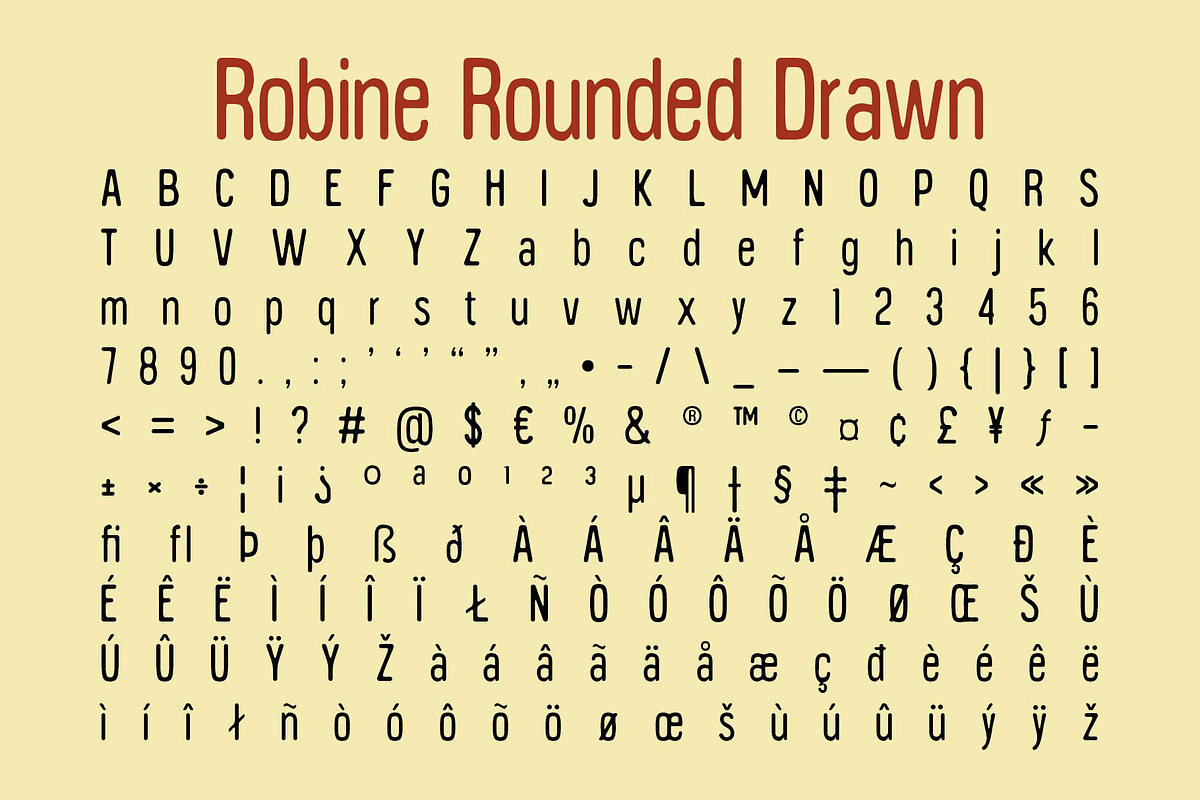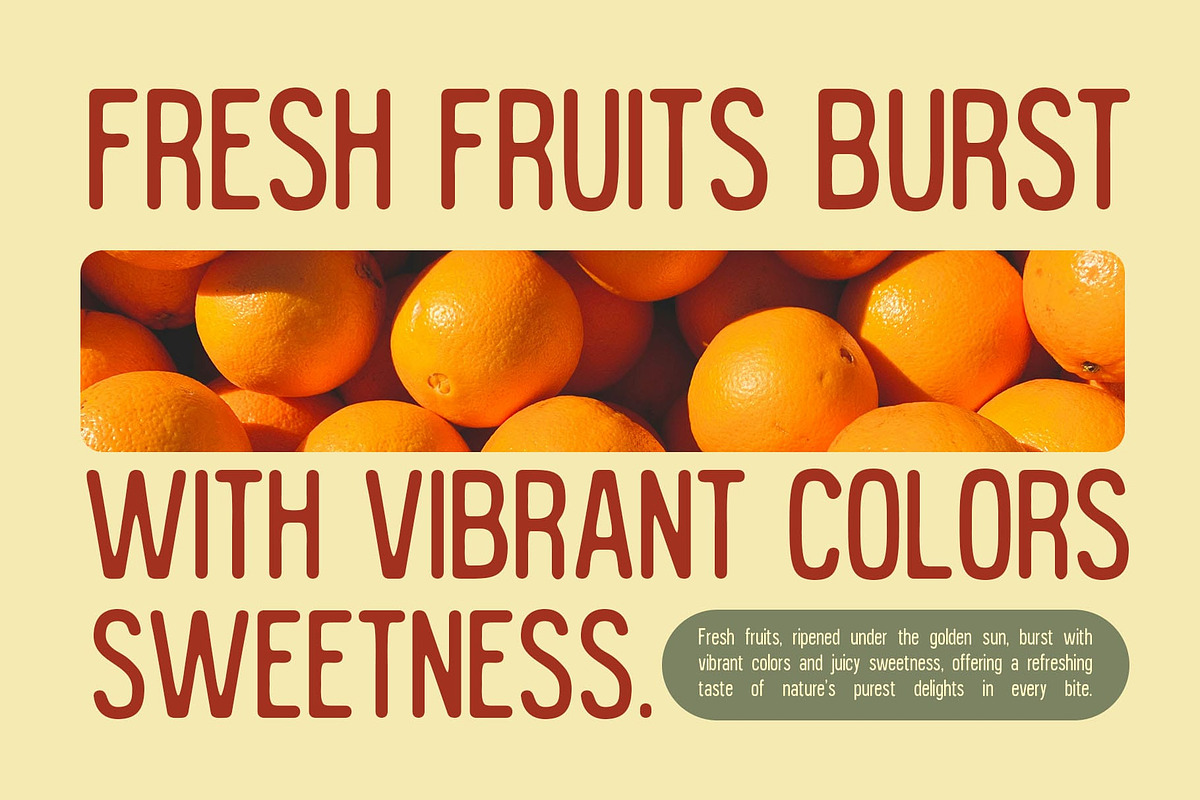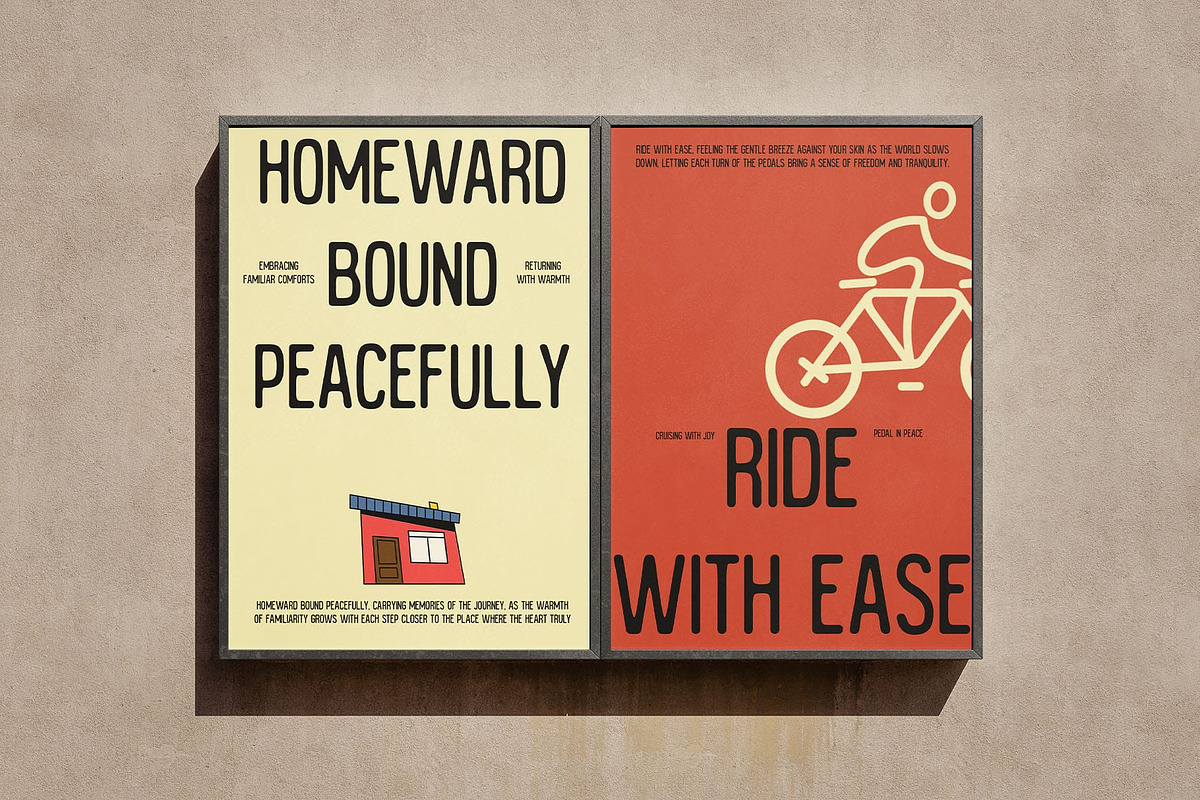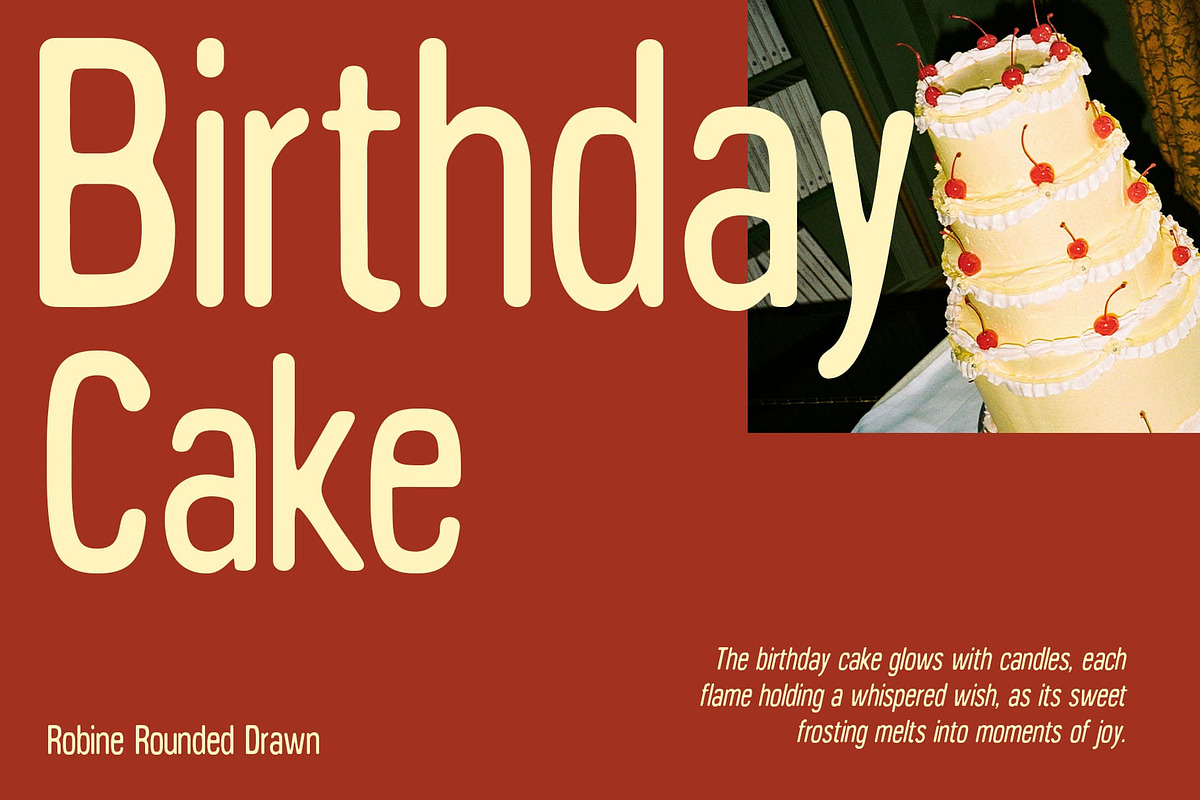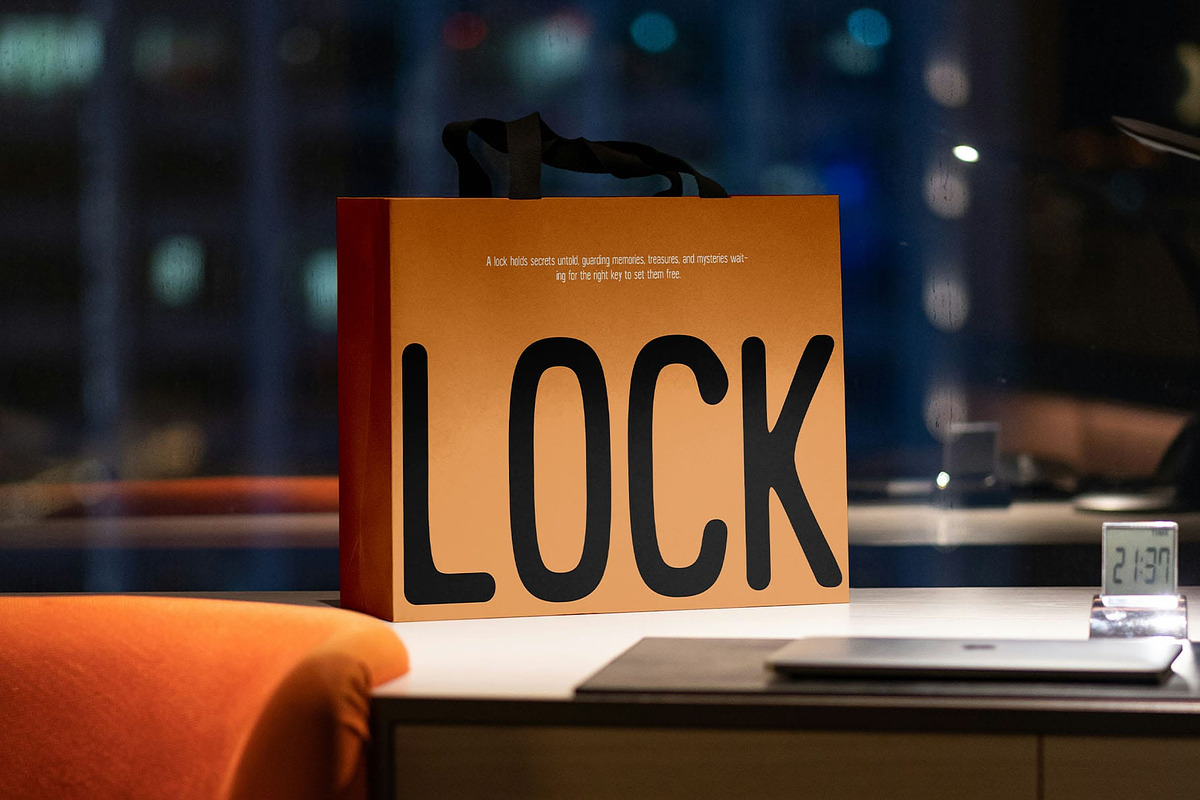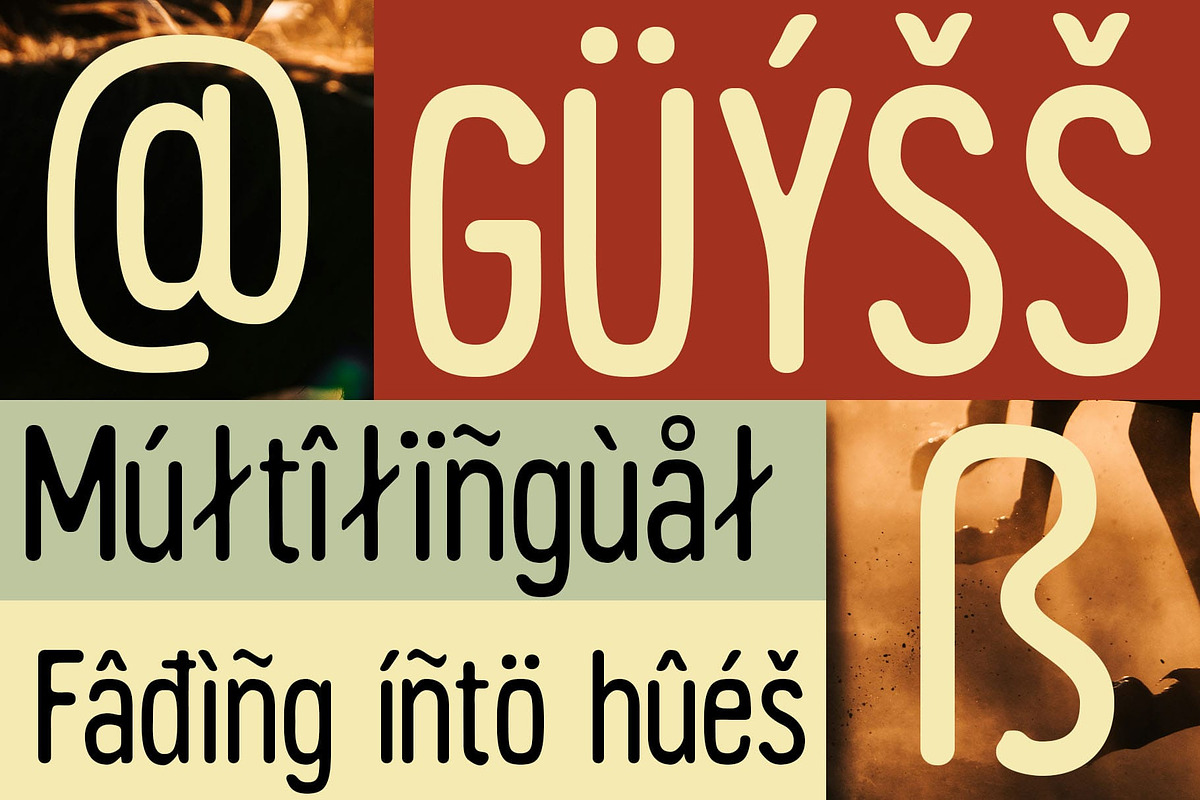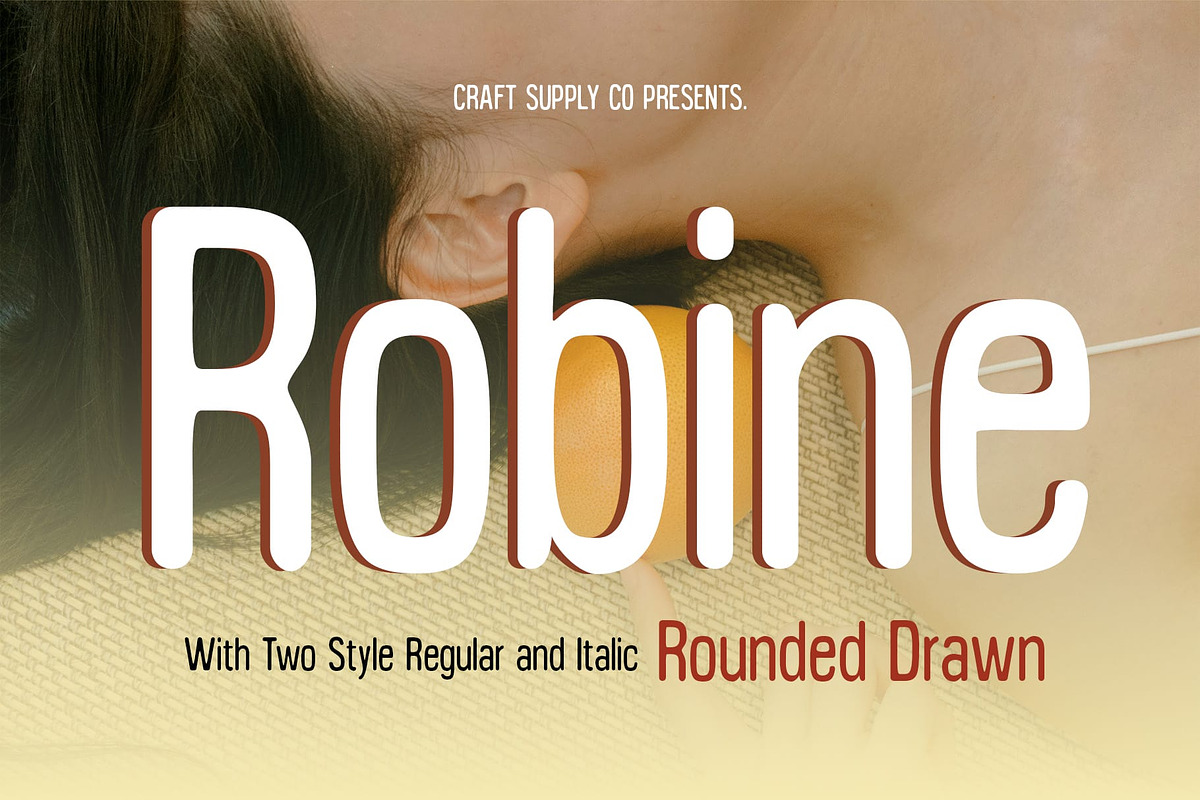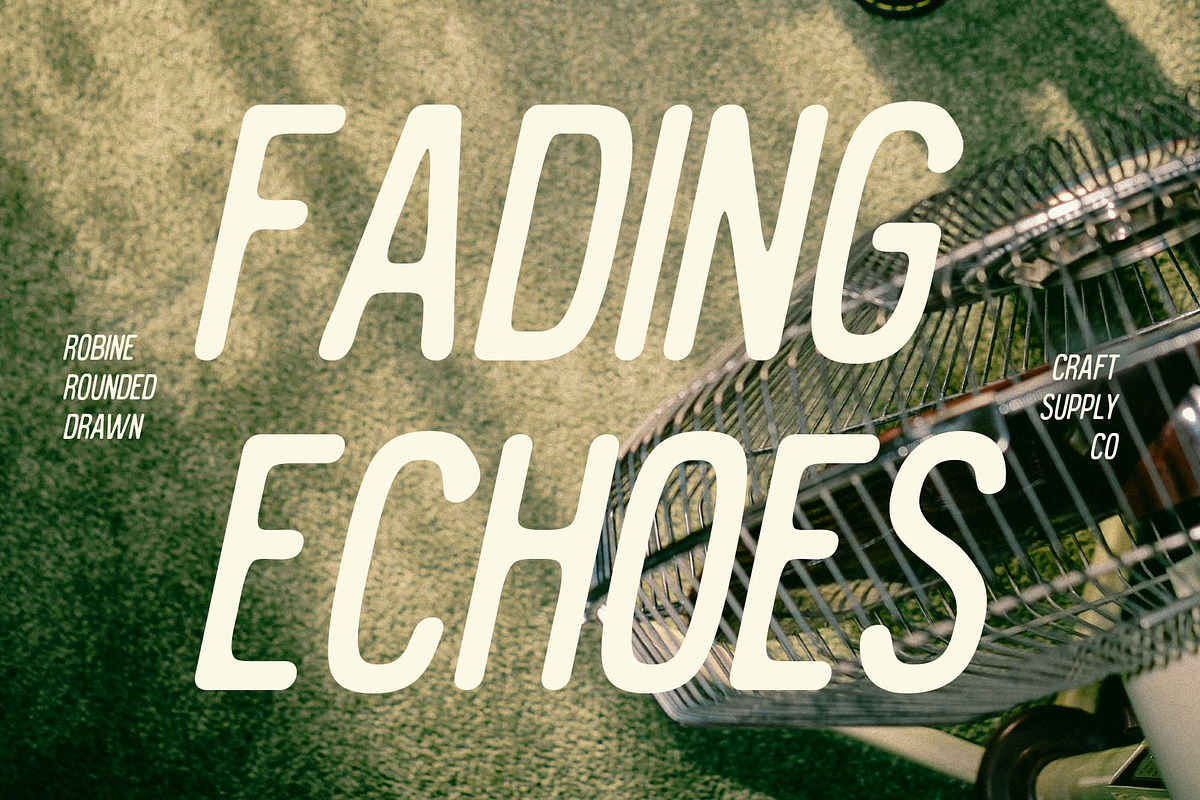
Robine Rounded Drawn
Robine Rounded Drawn Font: A Fusion of Modernity and Handcrafted Charm
Contemporary Sans Serif with a Drawn Effect This is a modern sans-serif font featuring a condensed and rounded design with a hand-drawn texture. This unique combination blends sleek, smooth curves with an artistic and organic touch, creating a font that feels both modern and expressive.
Friendly, Dynamic, and Futuristic Appeal With its curved letterforms and fluid structure, this font exudes a welcoming and energetic personality. The rounded edges soften the typography, making it perfect for tech-inspired, futuristic, or playful designs that require a balance between professionalism and creativity.
Artistic and Experimental Texture The hand-drawn detailing adds a layer of depth and authenticity, giving it a crafted, organic aesthetic. This unique textural quality makes this sans serif font an excellent choice for illustrations, digital designs, and creative branding that aim to stand out with a distinctive and personalized look.
Versatile for Creative and Digital Applications Ideal for branding, posters, social media graphics, packaging, and UI/UX design, this rounded drawn font offers versatility and originality. Whether used in tech branding, artistic visuals, or innovative layouts, this font delivers a modern yet human-centered approach to typography.